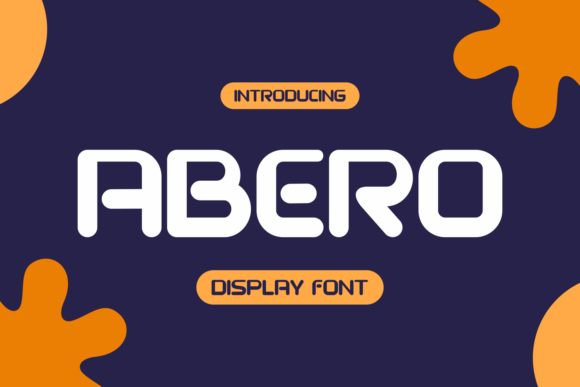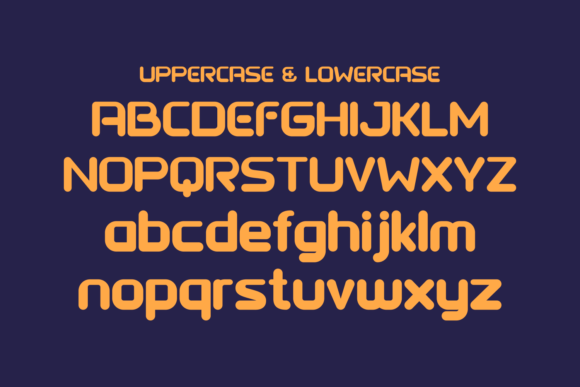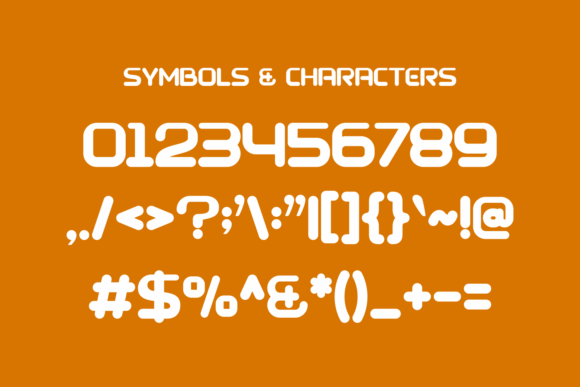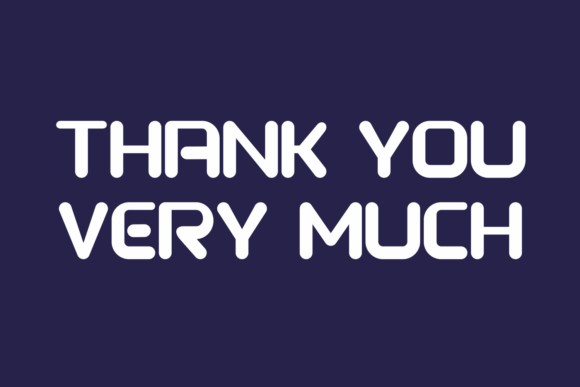
The Designer’s Delight: Uncovering the Versatility of Abero Font
I’ll never forget the time I was working on a branding project for a trendy new coffee shop. My client was adamant about finding the perfect font – something modern, yet elegant; bold, yet approachable. As I scoured the internet for the ideal typeface, I stumbled upon Abero Font. And, oh, was I impressed! 🤩
In this article, we’ll dive into the world of Abero Font, exploring its features, uses, and some clever tips on how to make the most of this stunning typeface.
An Honest Review of Abero Font
What I Love About Abero Font
- ✨ Perfectly suited for print and screen: Abero Font shines in both digital and print applications, making it an incredibly versatile choice.
- ✅ Extensive range of applications: From branding and name cards to posters, logos, magazines, and more, Abero Font is the ultimate multi-tasker.
- 💡 Highly legible: Even at smaller font sizes, Abero Font remains crystal clear, ensuring your message always gets across.
While Abero Font is an exceptional typeface, there are a few minor quirks to be aware of:
- ⚠️ Limited availability of certain characters: Some special characters or glyphs might be missing, but this can often be resolved by using OpenType features or substituting with alternative fonts.
- 🤔 May require font substitution for non-English languages: If you’re working with languages that require non-ASCII characters, you might need to use a complementary font.
The Designer Inspiration Behind Abero Font
Although the origins of Abero Font are shrouded in mystery, it’s said that its designer drew inspiration from classic typography and modern digital trends. The result is a font that effortlessly bridges the gap between traditional and contemporary design.
Q: What is the primary use of Abero Font?
A: Abero Font is a versatile typeface suitable for a wide range of applications, including branding, print materials, digital interfaces, and more.
Q: Is Abero Font suitable for body text?
A: While Abero Font is highly legible, it’s best suited for headings, titles, and short paragraphs. For longer body text, consider pairing it with a complementary serif font.